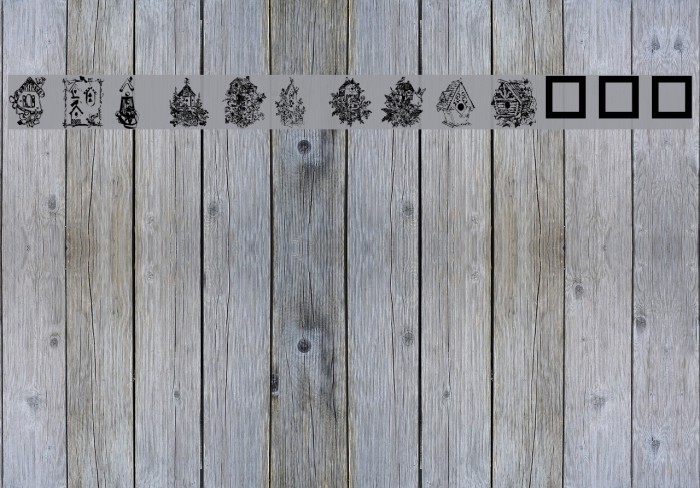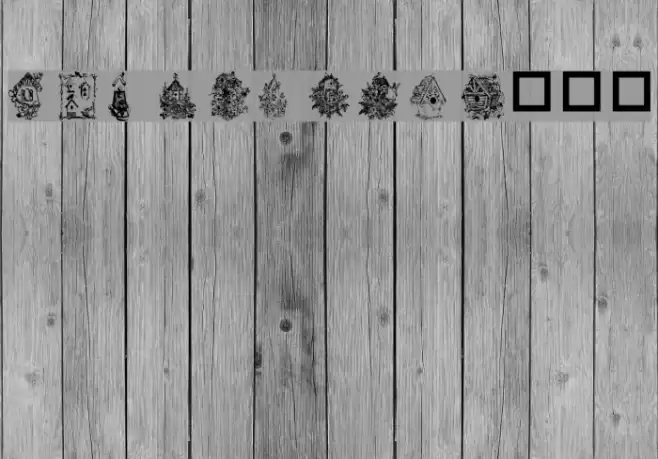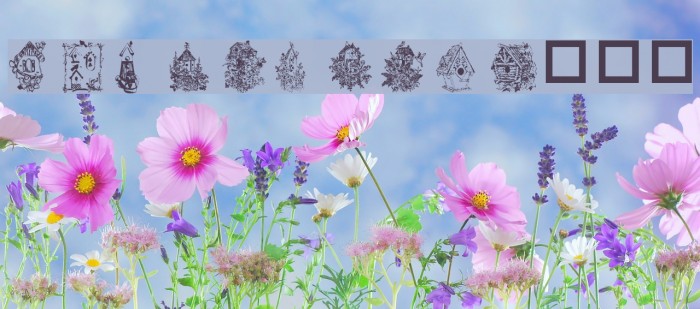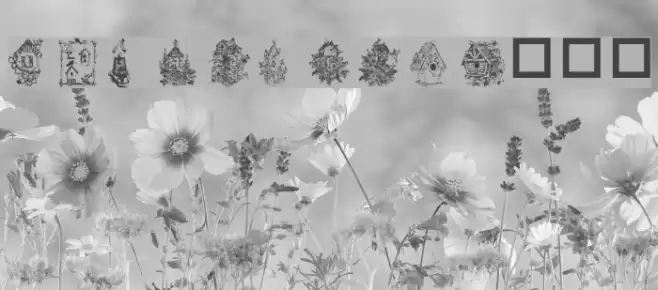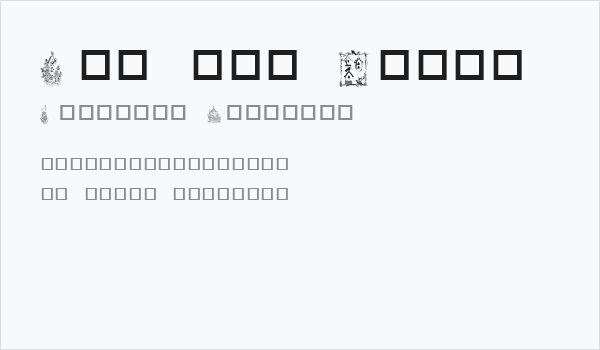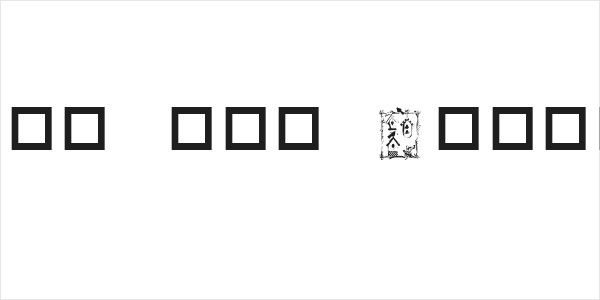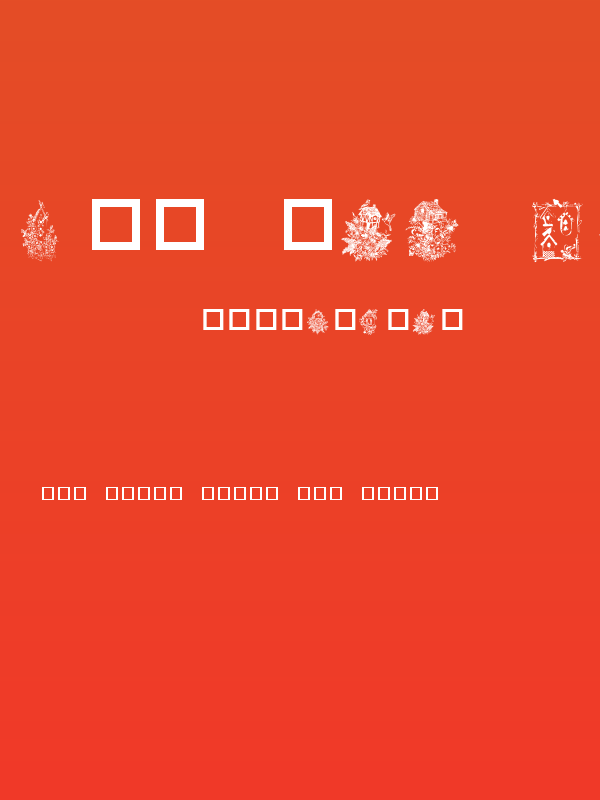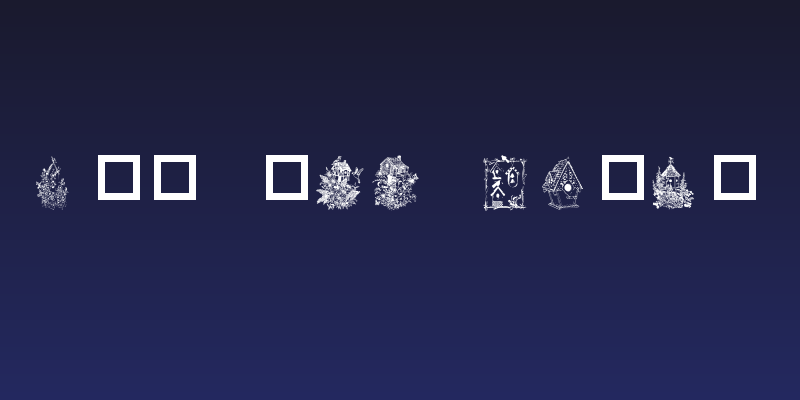
For the Birds Font
For the Birds Description
This font features intricate, decorative designs that incorporate bird motifs into each character. The letters are highly stylized, resembling ornate illustrations rather than traditional typography. Each character is unique, with elaborate details that suggest a vintage or antique aesthetic. The font is more of an artistic representation, making it suitable for specific thematic uses rather than general readability. The overall appearance is whimsical and artistic, capturing the essence of nature and creativity.
Use CaseLogos, Decorative headings, Artistic projects
Proposed ProjectsIdeal for artistic projects, themed invitations, decorative posters, or any design work that requires a whimsical, nature-inspired touch.